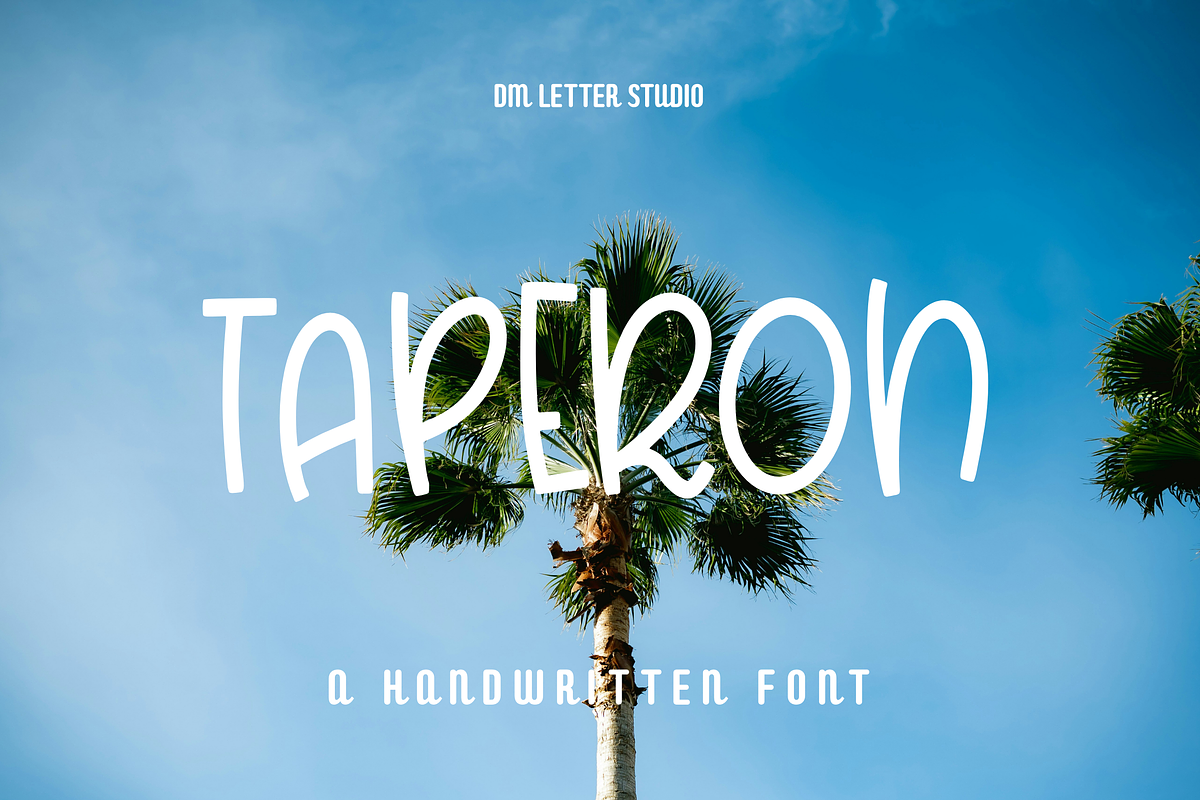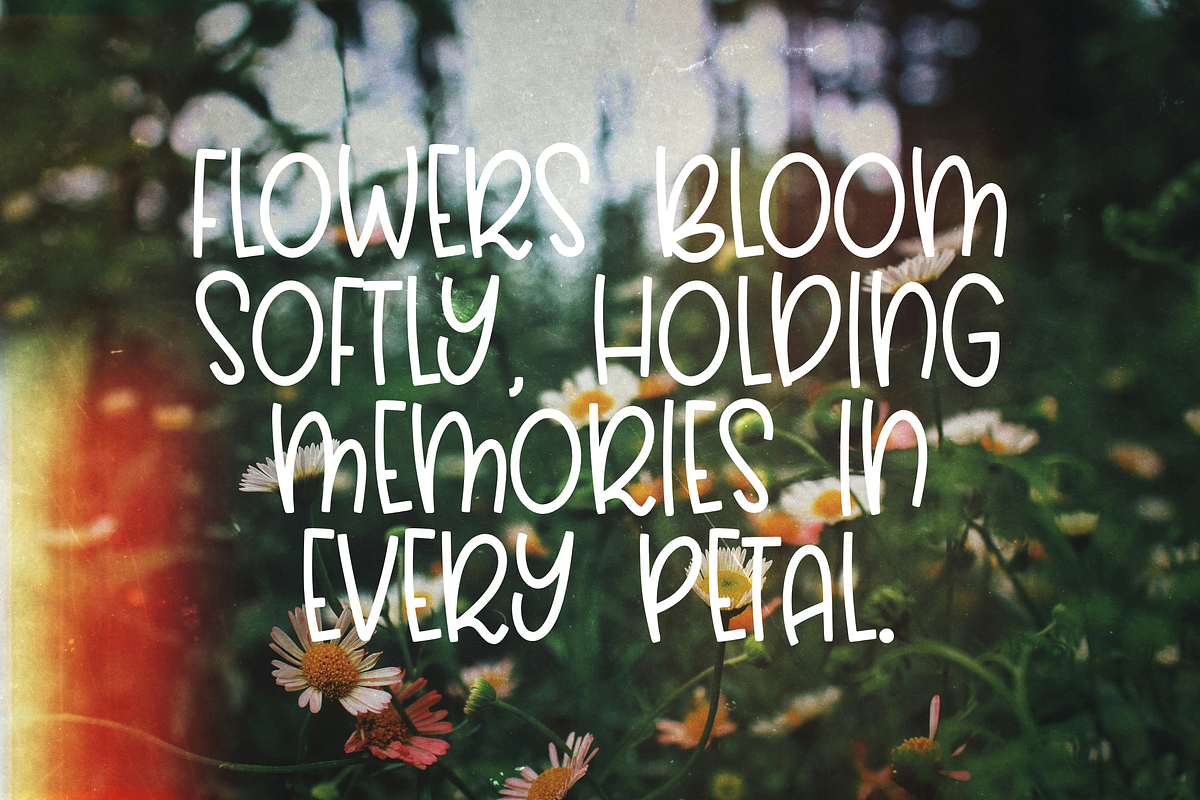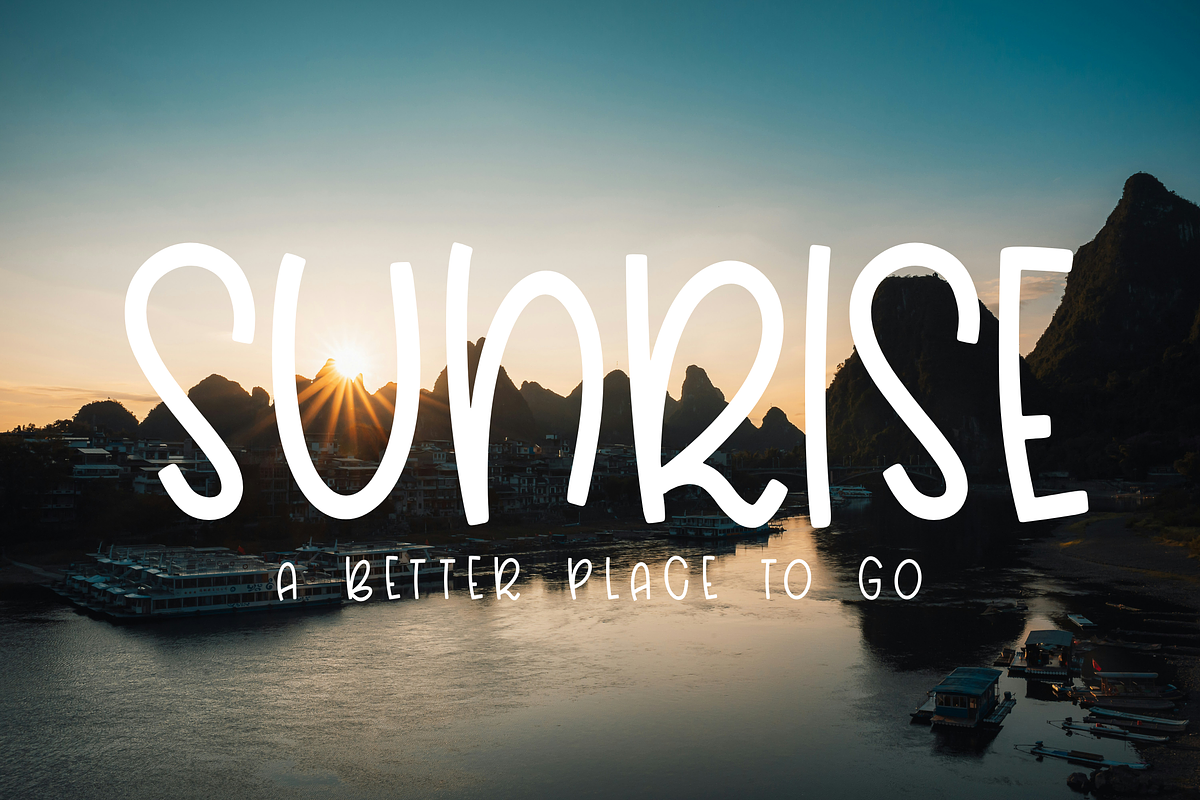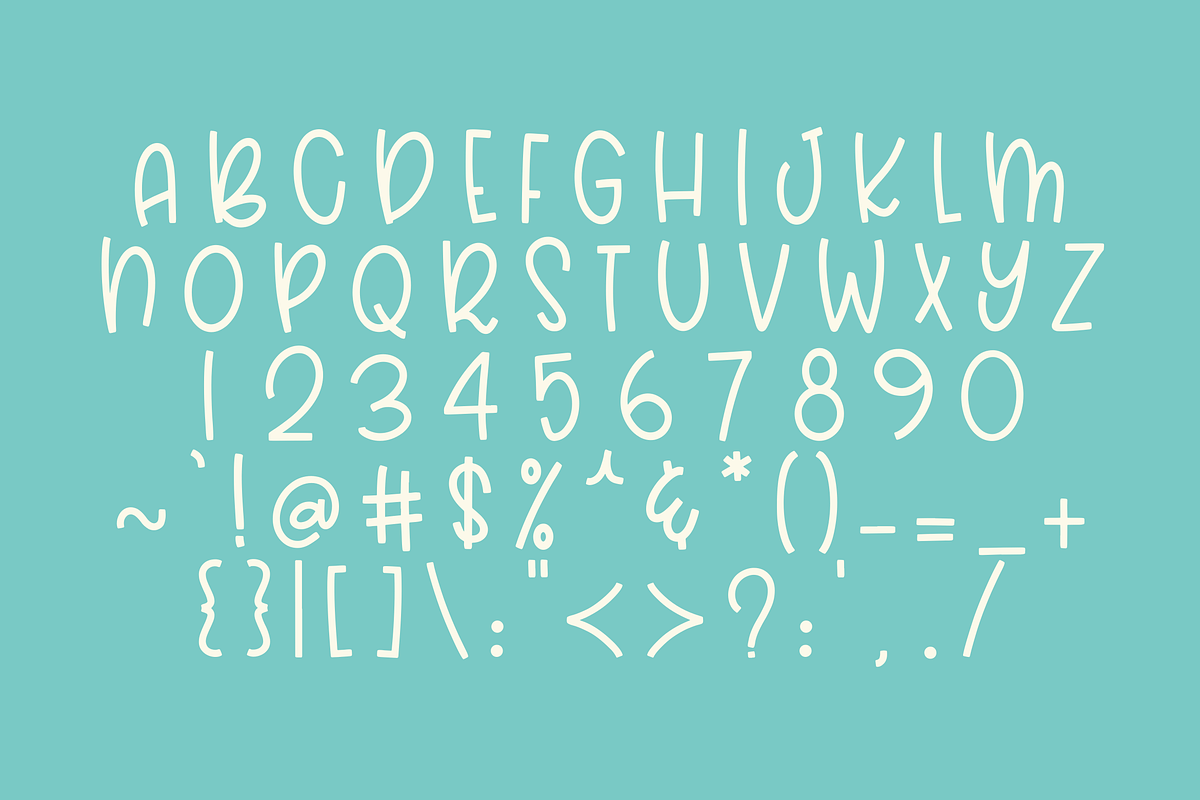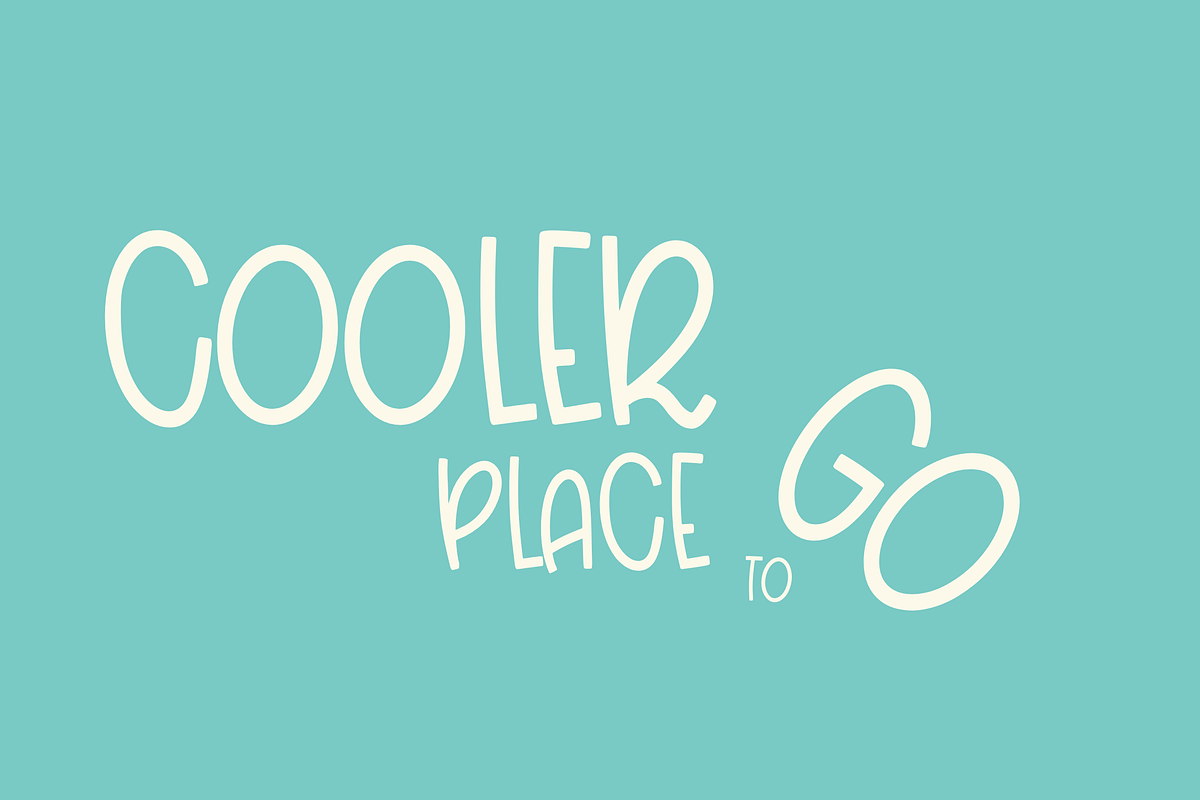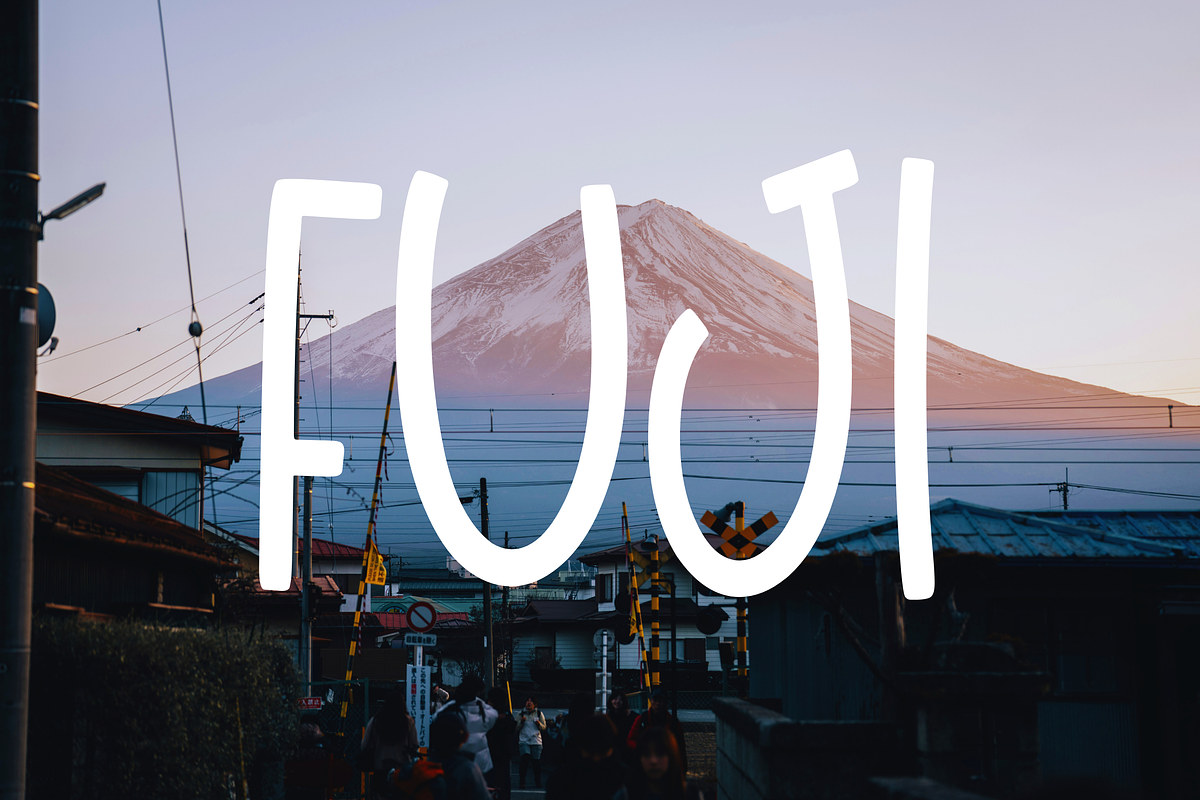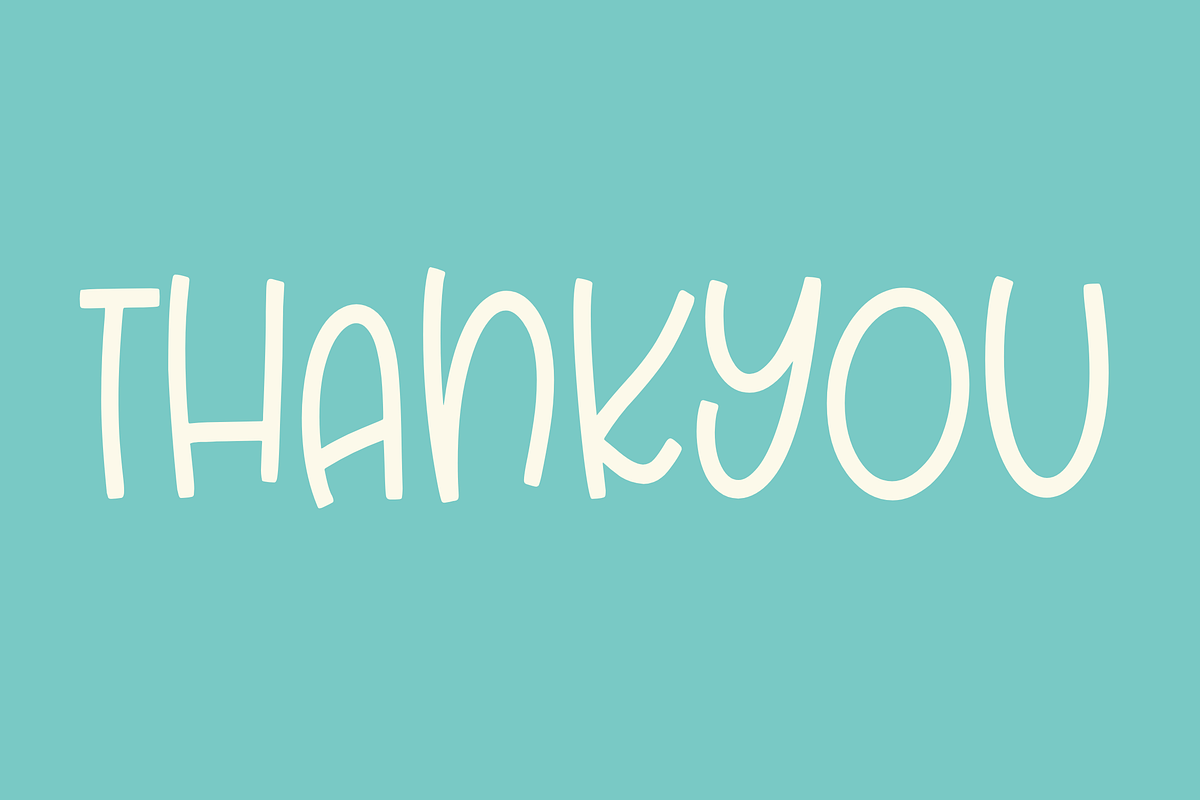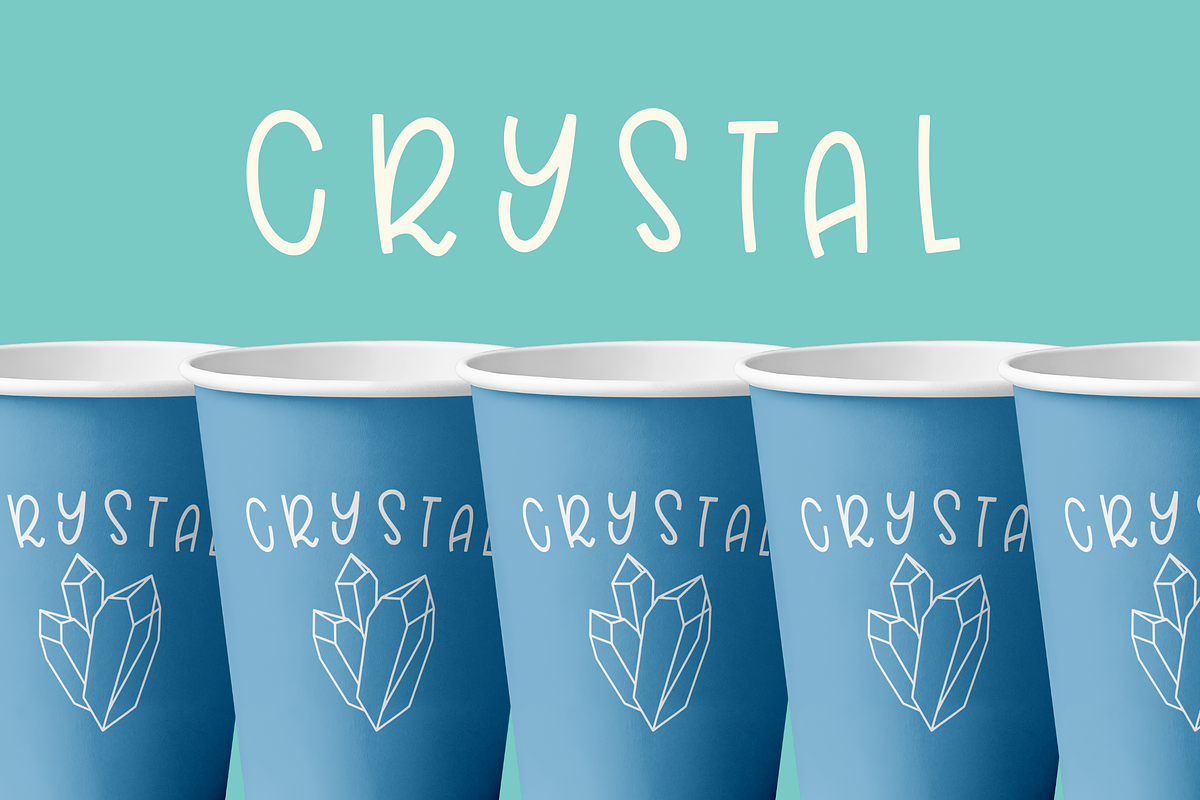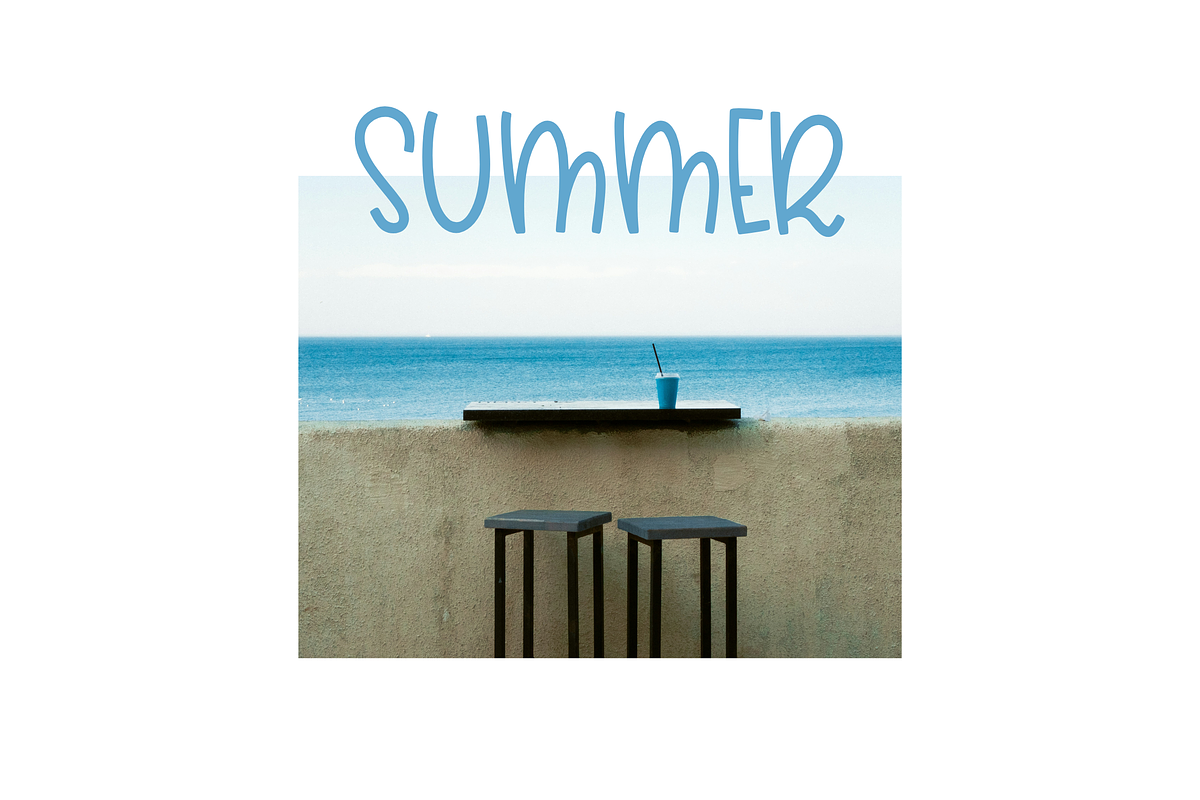
Taperon
Meet Taperon, the Handwriting Font
Taperon is a clean, modern handwriting font designed to feel natural, friendly, and easy to read. The strokes are smooth with a slightly tapered flow, giving it a simple handwritten charm without looking messy. It’s the kind of font that fits everyday branding, note-style designs, and warm lifestyle content. Use Taperon for quotes, planners, packaging, café menus, product labels, personal branding, Instagram posts, and small business designs. As a result, your typography feels relaxed, authentic, and approachable.
Fast layouts with the Taperon Font
Start with short quotes, names, or product titles. After that, adjust spacing slightly for a more airy, premium feel. Because the strokes are clean, pair it with soft backgrounds or minimal layouts for the best look. In addition, match it with a sans serif font for details like pricing, descriptions, or captions. Finally, try palettes like warm beige and brown, sage and cream, charcoal and white, or dusty blue and light gray for calm branding.
Creative uses and quick wins
- Quote graphics and social media posts
- Planners, journals, and printable templates
- Café menus, labels, and product packaging
- Personal branding logos and signature text
- Uppercase and lowercase letters
- Numbers and basic punctuation
Design tips for Taperon
Use this font for short lines, highlights, and friendly branding text. Also, keep line spacing comfortable for multi-line quotes. For print, test small sizes to ensure strokes remain clear. For digital, increase the size slightly for better mobile readability. Finally, combine it with simple icons, clean frames, or soft textures to build a cohesive handwritten look.